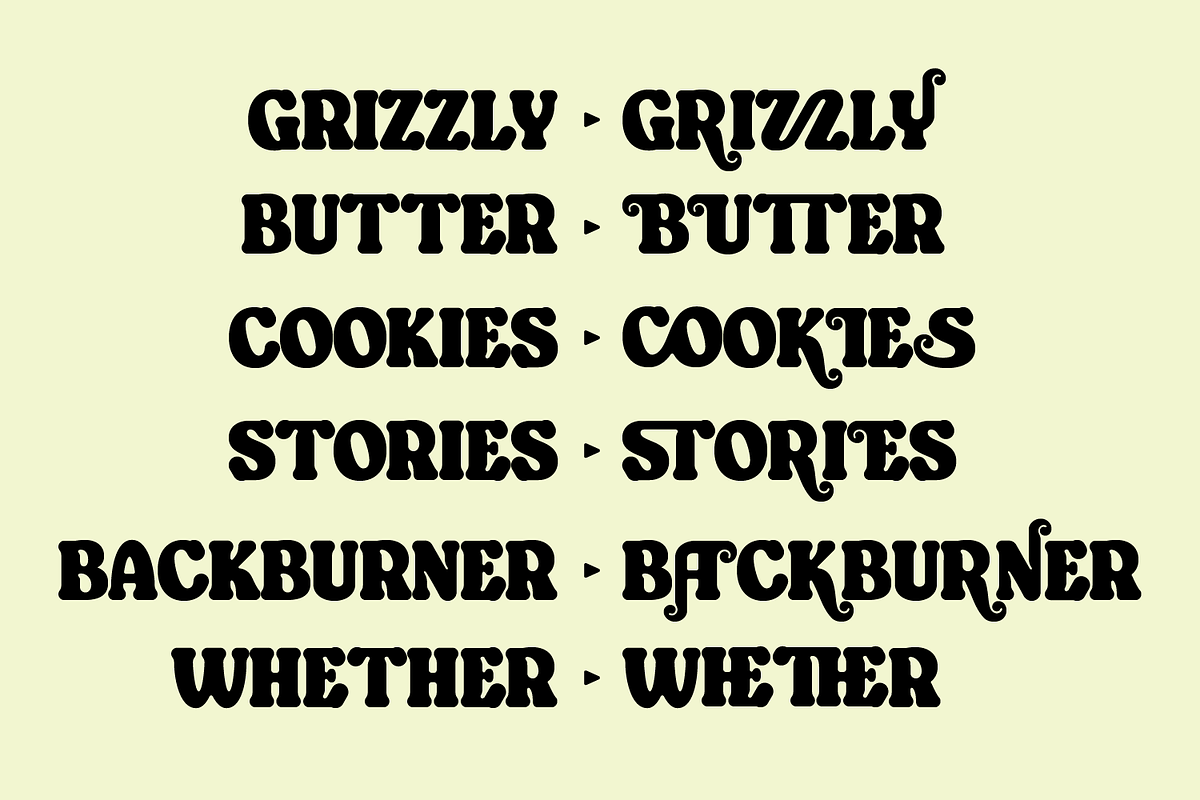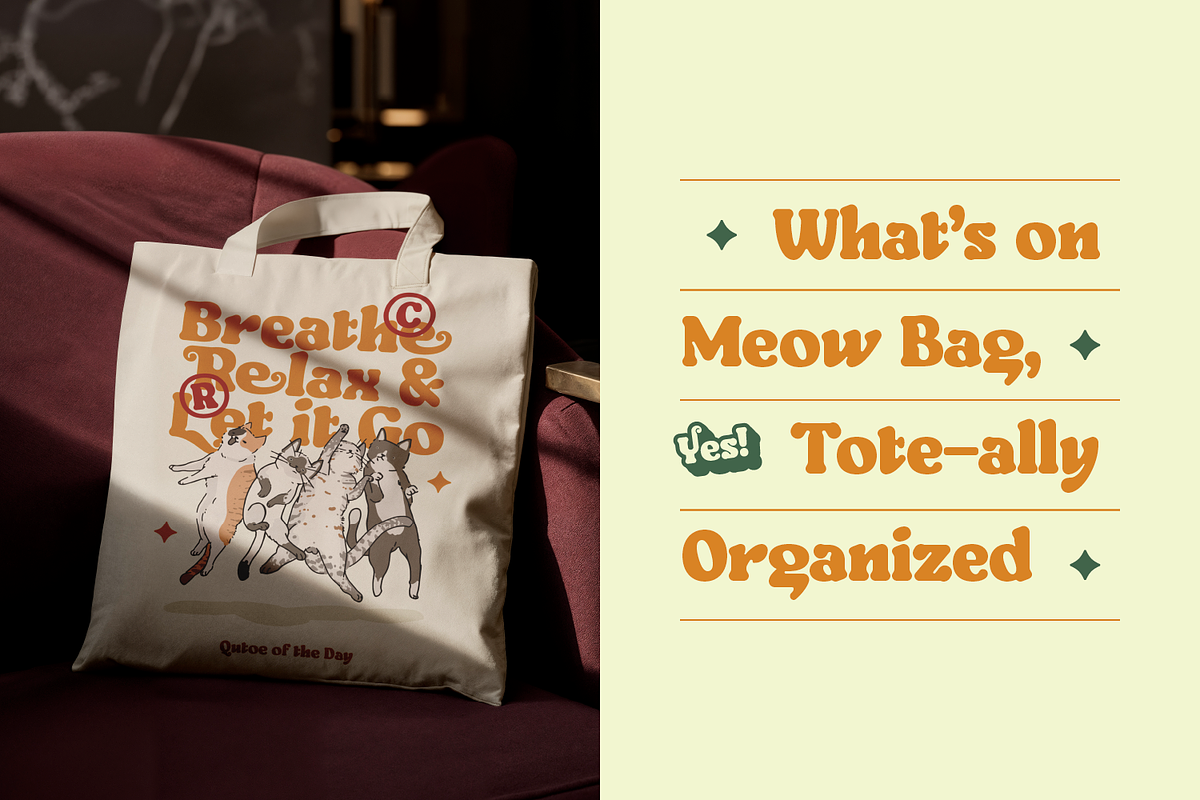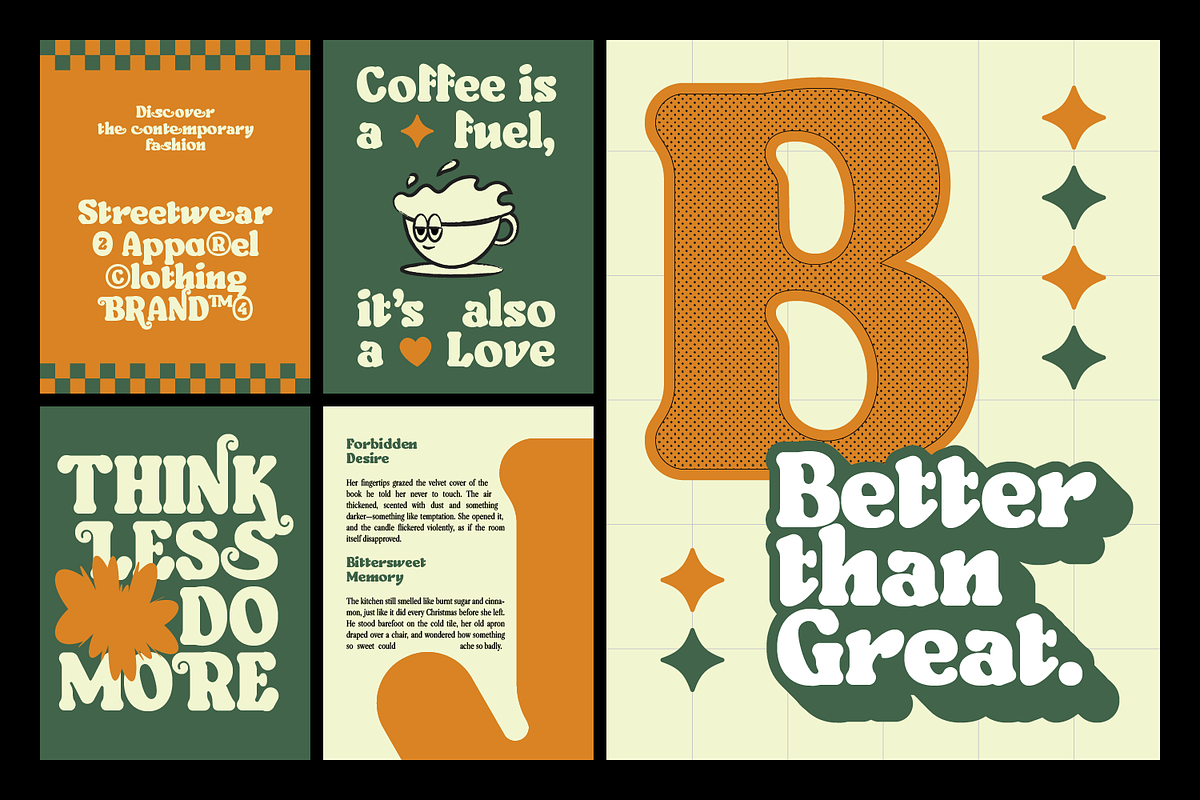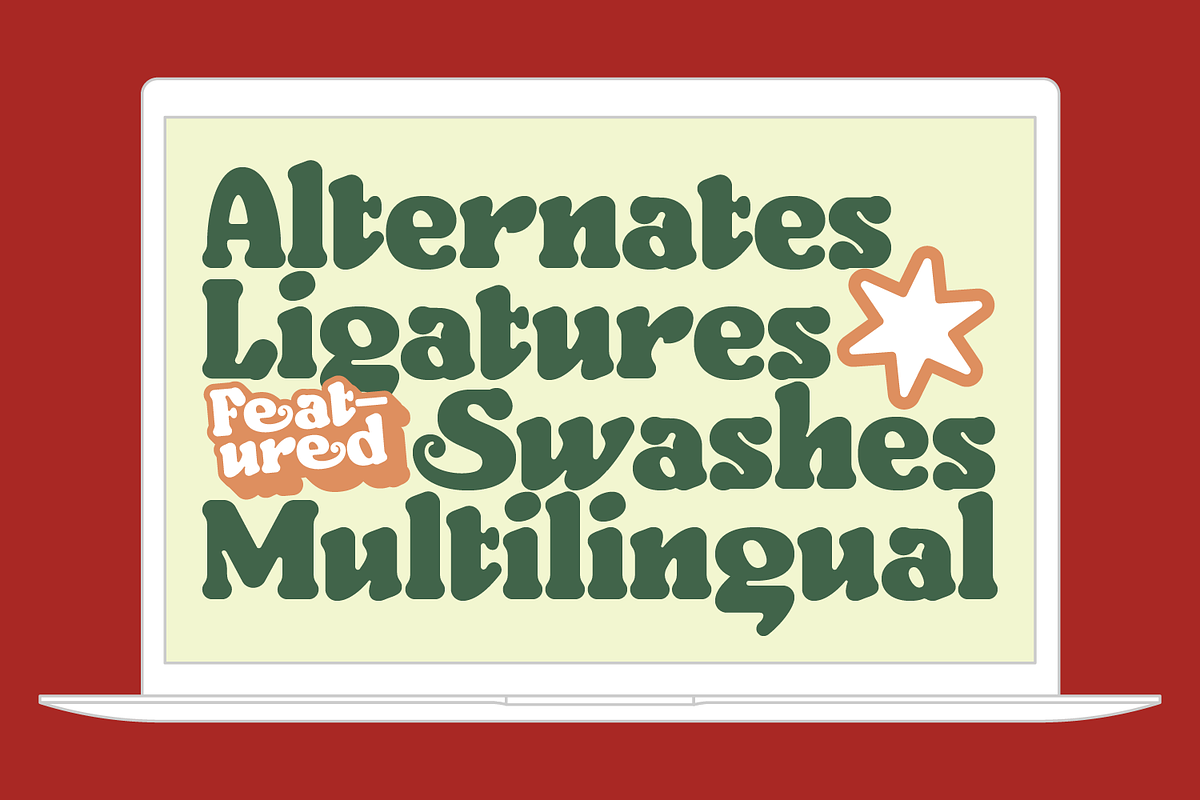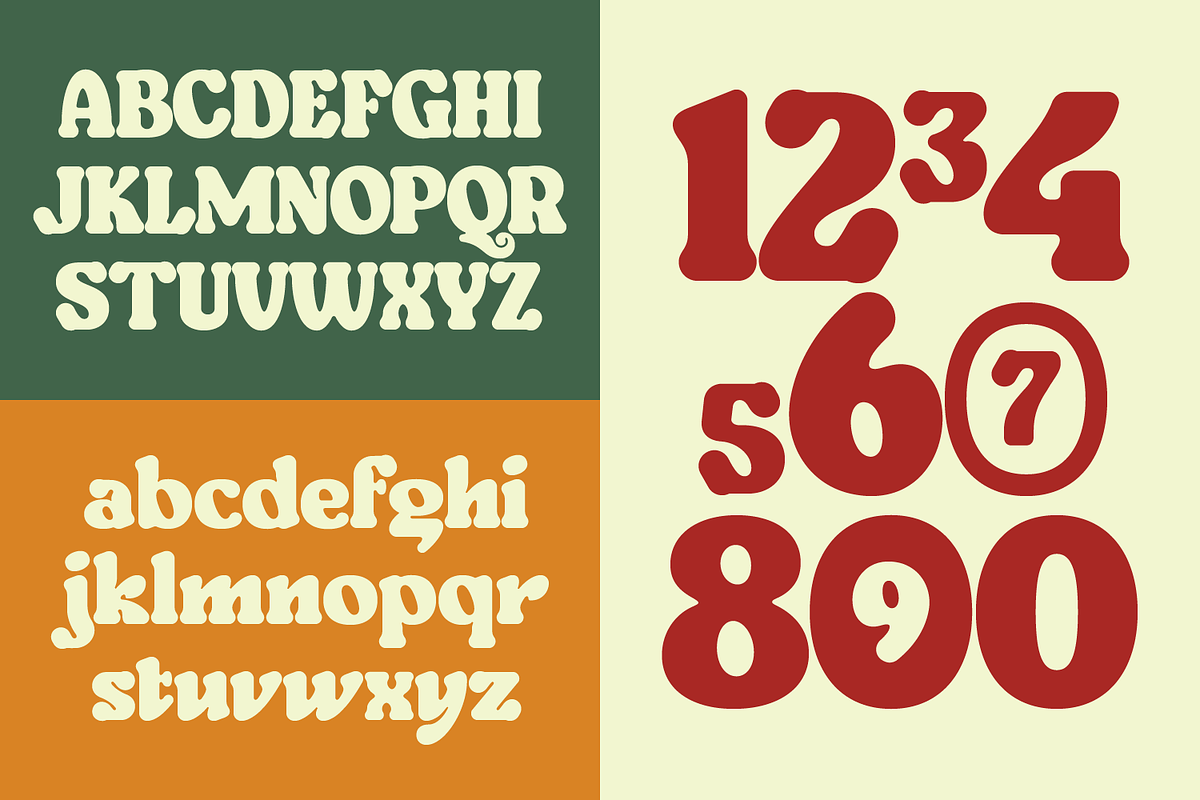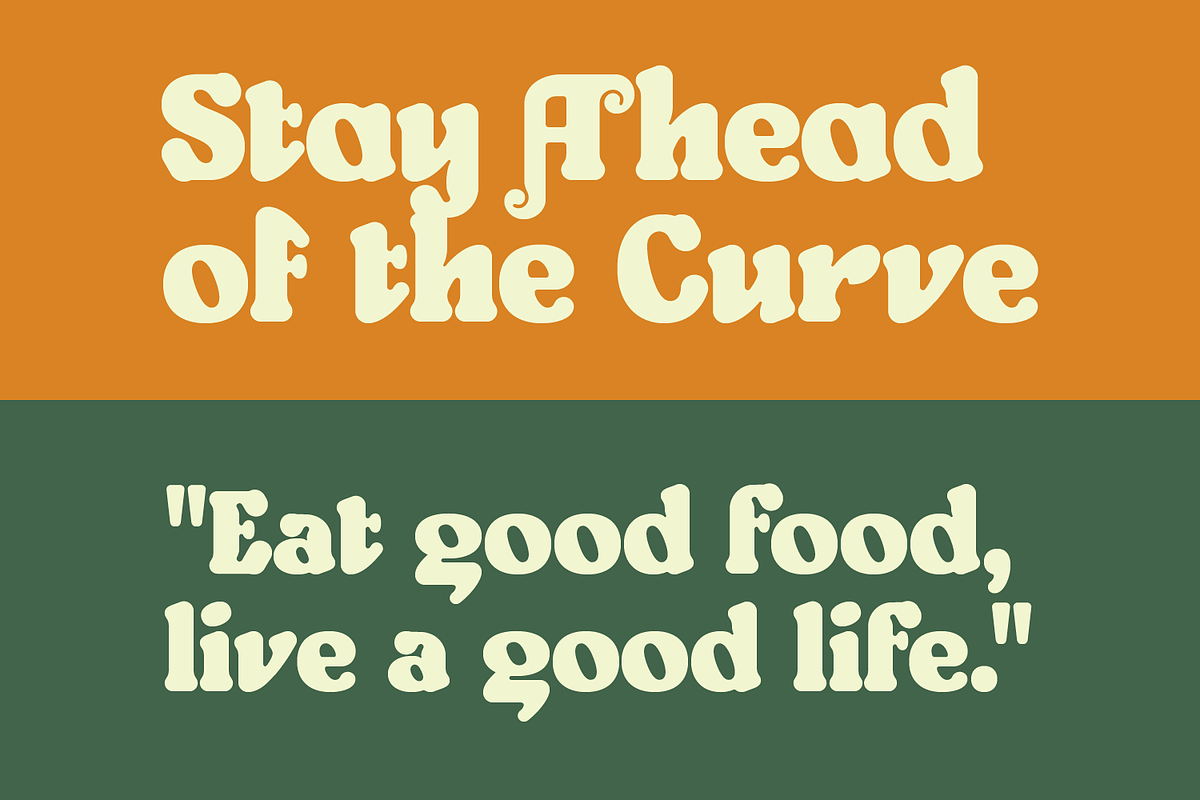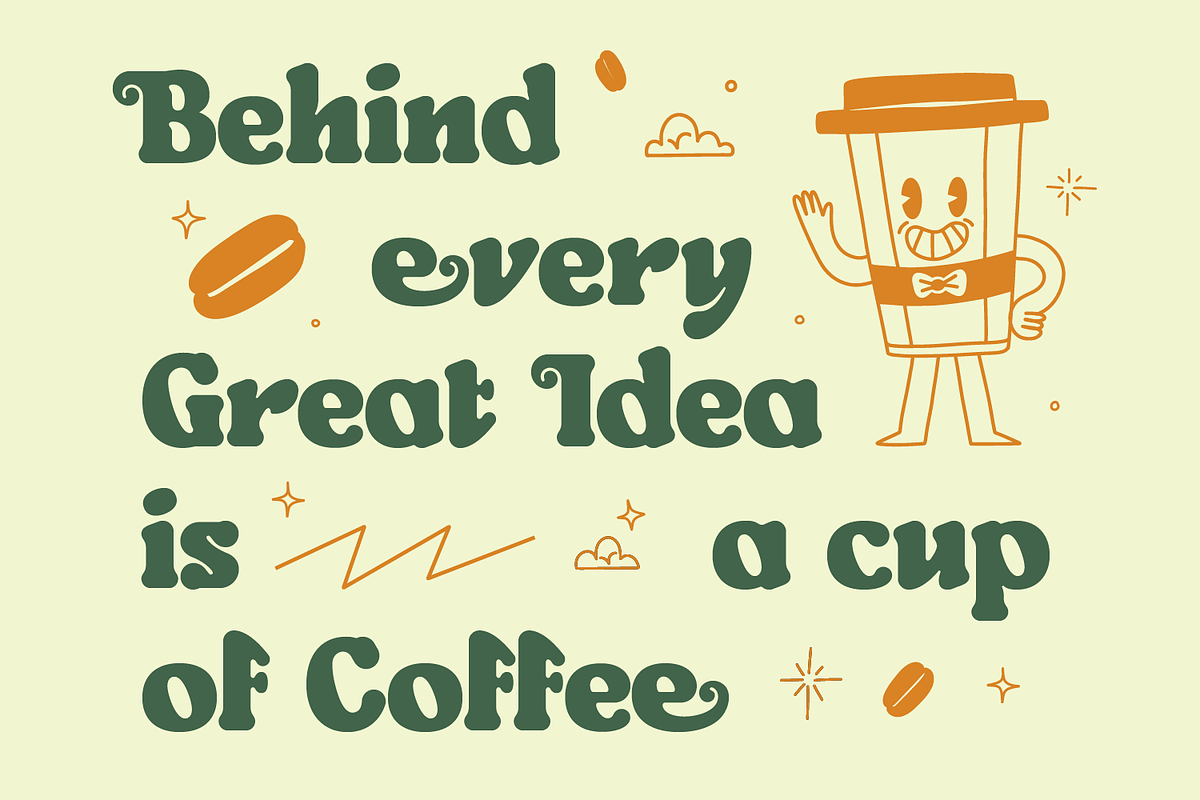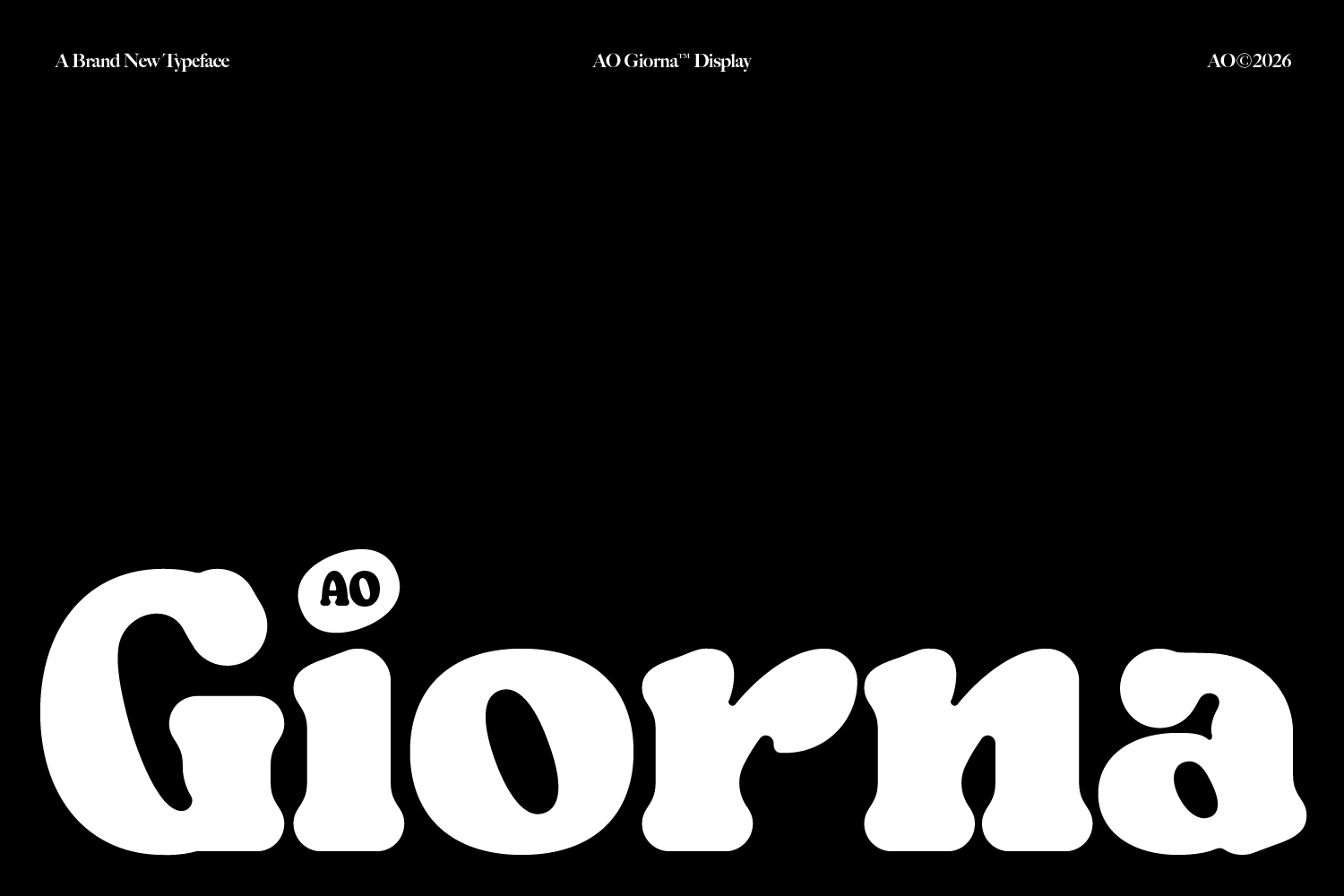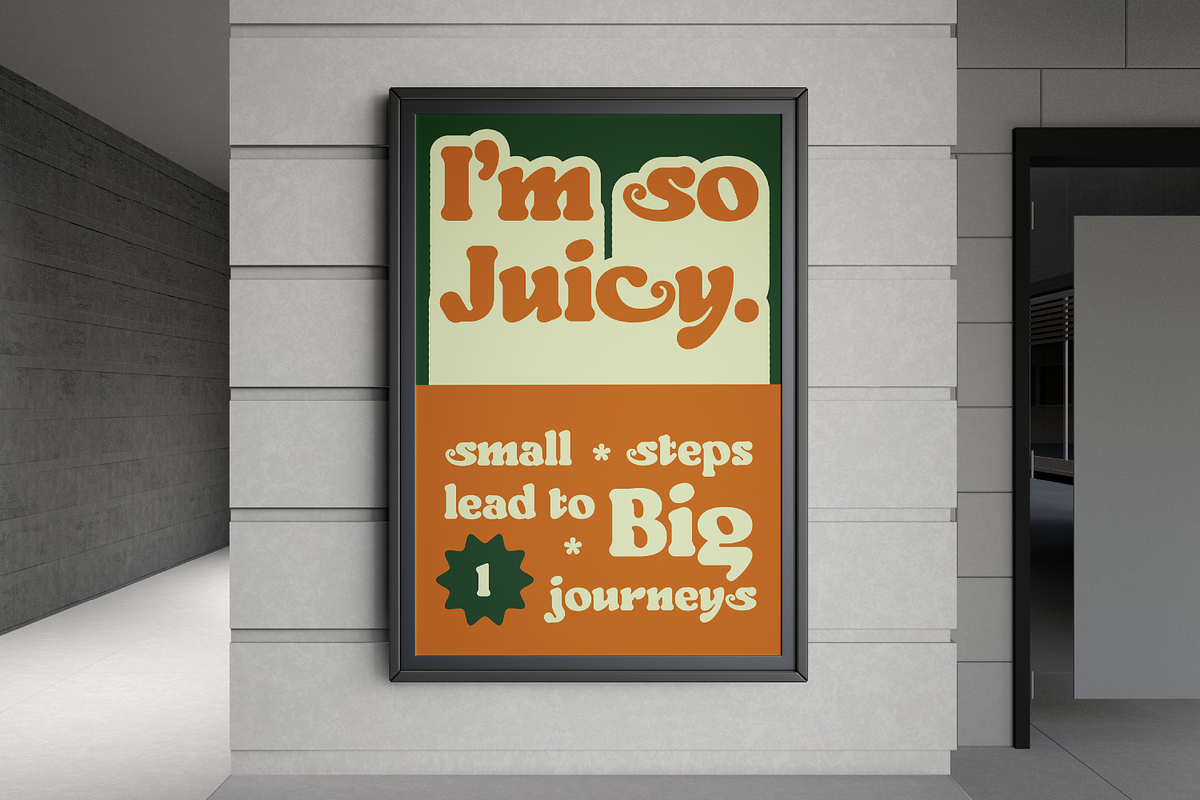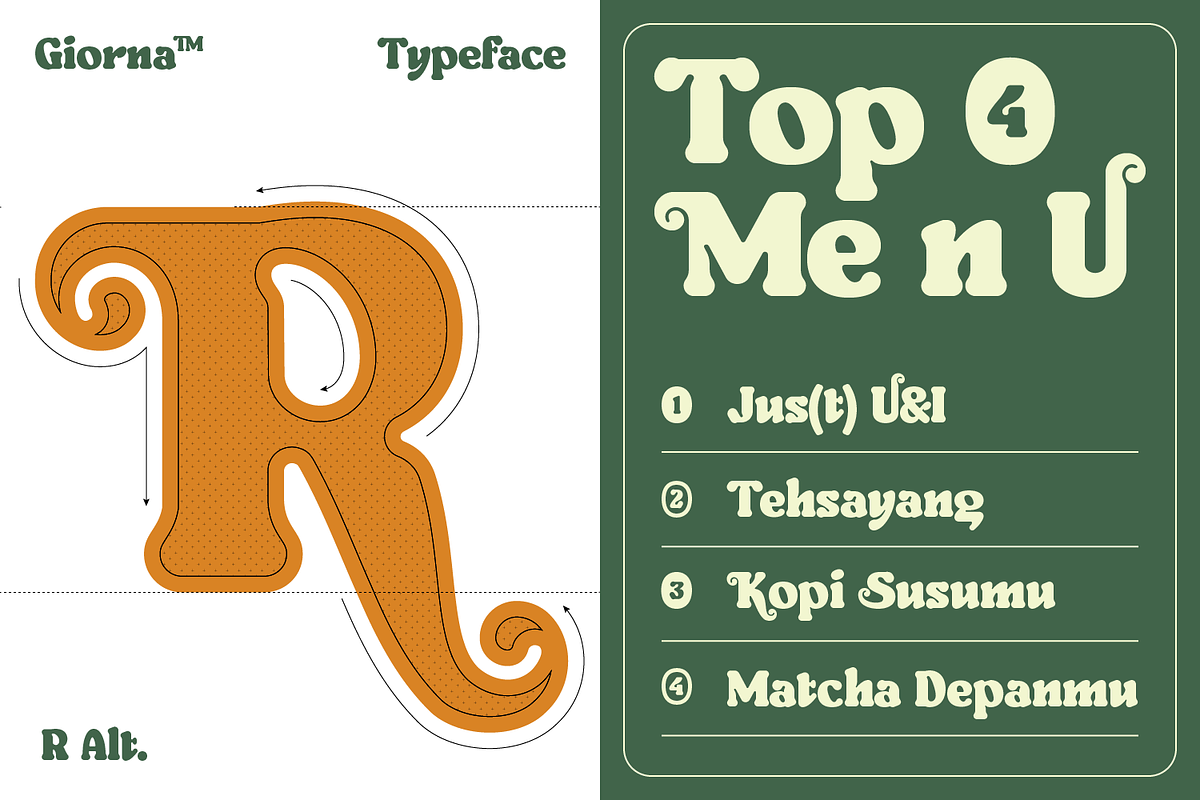
AO Giorna - Bold Display Font
Giorna, a modern display font made to stand out. Bold, clean, and full of personality, it comes with alternates, ligatures, swashes, and multilingual support. Perfect for logos, branding, packaging, social media, and anything that needs a fresh, eye-catching look.